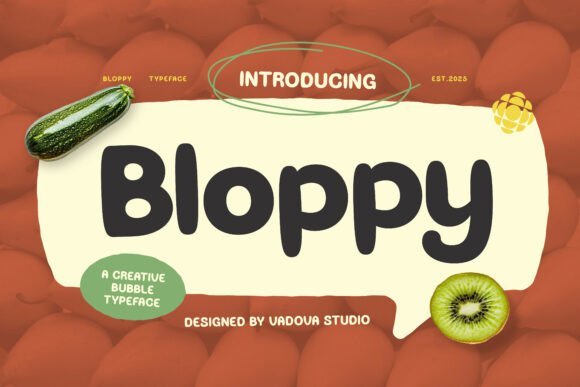
The Perfect Match for Playful Designs
Have you ever stared at a blank page, searching for the perfect font to capture the essence of your creative project? You know, that moment when everything seems to be falling into place, and the right typography can make all the difference. For designers seeking a friendly and approachable look, Bloppy Font is an excellent choice.
Bloppy Font is a delightful bubble typeface with rounded organic shapes that bring a youthful and cheerful personality to any design. Its soft curves, chunky strokes, and handwritten feel make it perfect for branding, kids products, food packaging, social media visuals, game titles, and creative merchandise. Whether you’re creating a brand identity or designing a product label, Bloppy Font is an excellent addition to your toolkit.
Bloppy Font Key Features
- Unique Characteristics: Bloppy Font features a distinctive, playful design with rounded edges and a soft, irregular texture, giving it a friendly and approachable feel.
- Scalability: Bloppy Font is designed to be highly scalable, maintaining its integrity and legibility even at small font sizes, making it suitable for use in a range of applications, from body text to display headings.
Bloppy Font Review
Overall, I’m a bit torn about Bloppy Font. It’s a fun, experimental font that can add some personality to your designs, but it’s not without its limitations.
- Unique Character: Bloppy Font has a distinctive, hand-drawn feel that can add a touch of whimsy to your designs.
- Flexibility: It’s available in a range of weights and styles, making it suitable for a variety of projects.
- Expressive: Bloppy Font is perfect for projects that need a bit of flair, like logos, posters, and social media graphics.
- Readability: While Bloppy Font is great for headlines and emphasis, it can be challenging to read in large blocks of text.
- Consistency: The font’s hand-drawn feel can sometimes make it difficult to maintain consistency across different weights and styles.
- Professionalism: Depending on the context, Bloppy Font may not be suitable for more formal or professional projects.
Overall, I think Bloppy Font is a great addition to any designer’s toolkit, but it’s essential to use it judiciously and in the right context. With its unique character and flexibility, it can add a lot of value to your designs, but its limitations should be taken into account.
Tips for Getting the Most Out of Bloppy Font
For the best results, use Bloppy Font for titles, headings, and emphasis. Combine it with bold or italic text to add visual interest. Experiment with different font sizes and colors to create a unique look.
Bloppy Font is perfect for creating playful, eye-catching designs. Use it for:
– Blog titles and headings
– Infographics
– Children’s educational materials
Alternatives to “Bloppy Font” for Designers
Pacifico is a beautiful, elegant script font that is perfect for adding a touch of sophistication to your designs. It’s ideal for use in titles, headings, and other elements where you want to convey a sense of luxury and refinement. Compared to Bloppy Font, Pacifico is more refined and less playful, making it a great choice for designs that require a more mature tone.
Great Vibes is a fun, energetic script font that’s perfect for designs that need a boost of excitement and playfulness. It’s great for use in titles, headings, and other elements where you want to convey a sense of fun and energy. Compared to Bloppy Font, Great Vibes is more dynamic and less messy, making it a great choice for designs that require a bit of whimsy.